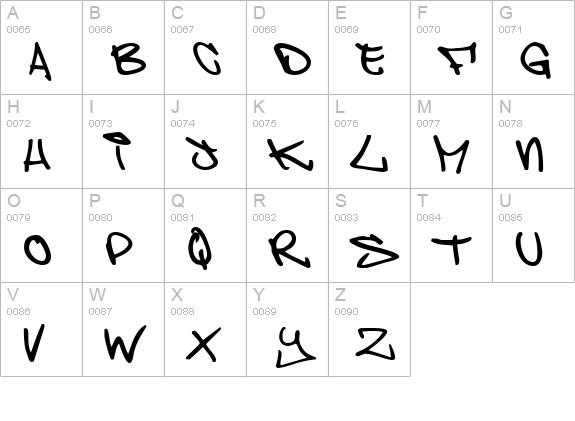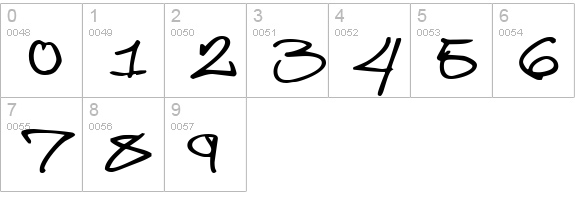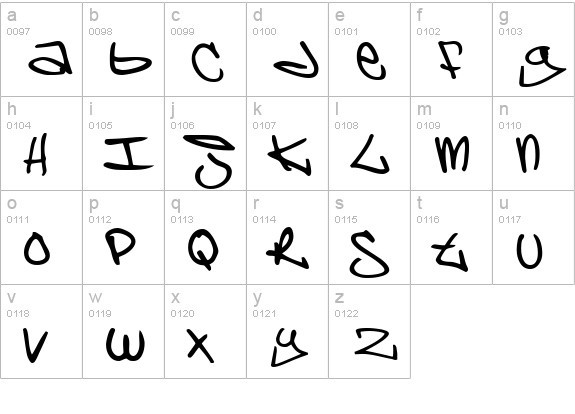
ChaosKid's Brooklyn Kid Font Details
Introducing ChaosKid's Brooklyn Kid font, a bold and stylish typeface that exudes urban flair and modern sophistication. This versatile font is perfect for adding a touch of edginess to your designs, whether you're working on posters, logos, or branding materials. ChaosKid's Brooklyn Kid font features a unique blend of sharp angles and sleek curves, creating a dynamic and eye-catching look that is sure to make your text stand out. Its contemporary design is inspired by the vibrant energy of Brooklyn, making it a perfect choice for projects that require a touch of urban cool. Best of all, ChaosKid's Brooklyn Kid font is available for free download at FontsMarket.com. Whether you're a designer looking to add some edge to your work or a creative looking for a fresh new font to play with, ChaosKid's Brooklyn Kid font is sure to impress. Download it today and unleash your creativity with this stunning typeface.